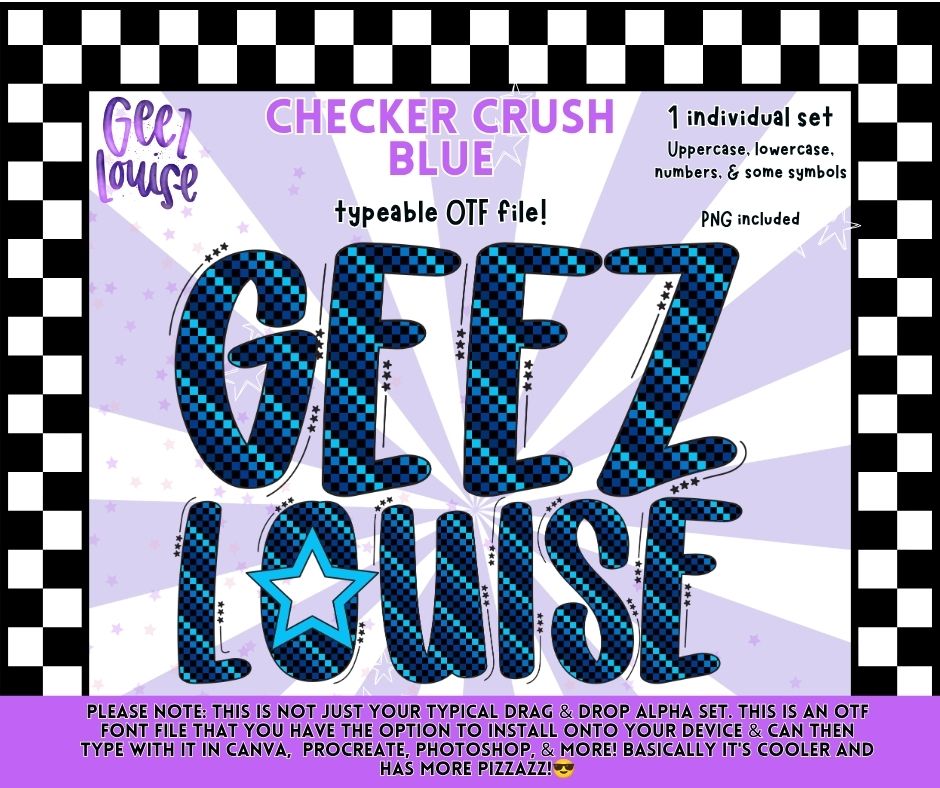
Checker Crush Blue Alpha Font OTF | Blue Checker Alphabet PNG | Typeable Font | Sports Font
๐๐ค Give your designs a bold pop with Checker Crush Blue Alpha! This eye-catching typeable font features a vibrant blue and black checker pattern that's perfect for sports, school spirit, racing-inspired designs, and everyday apparel.
This isn't your average drag-and-drop alphabet. Checker Crush Blue includes a fully installable OTF font so you can type directly inside compatible design programs, plus a matching PNG alphabet for even more creative freedom.